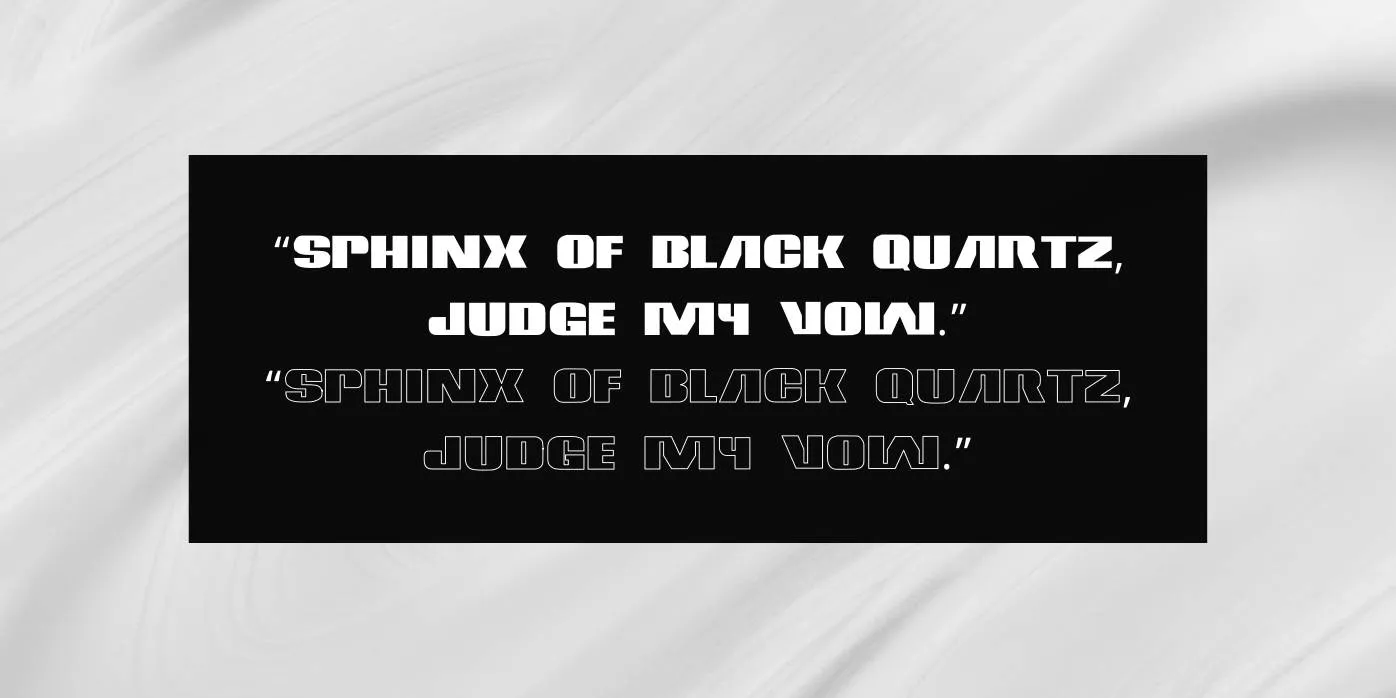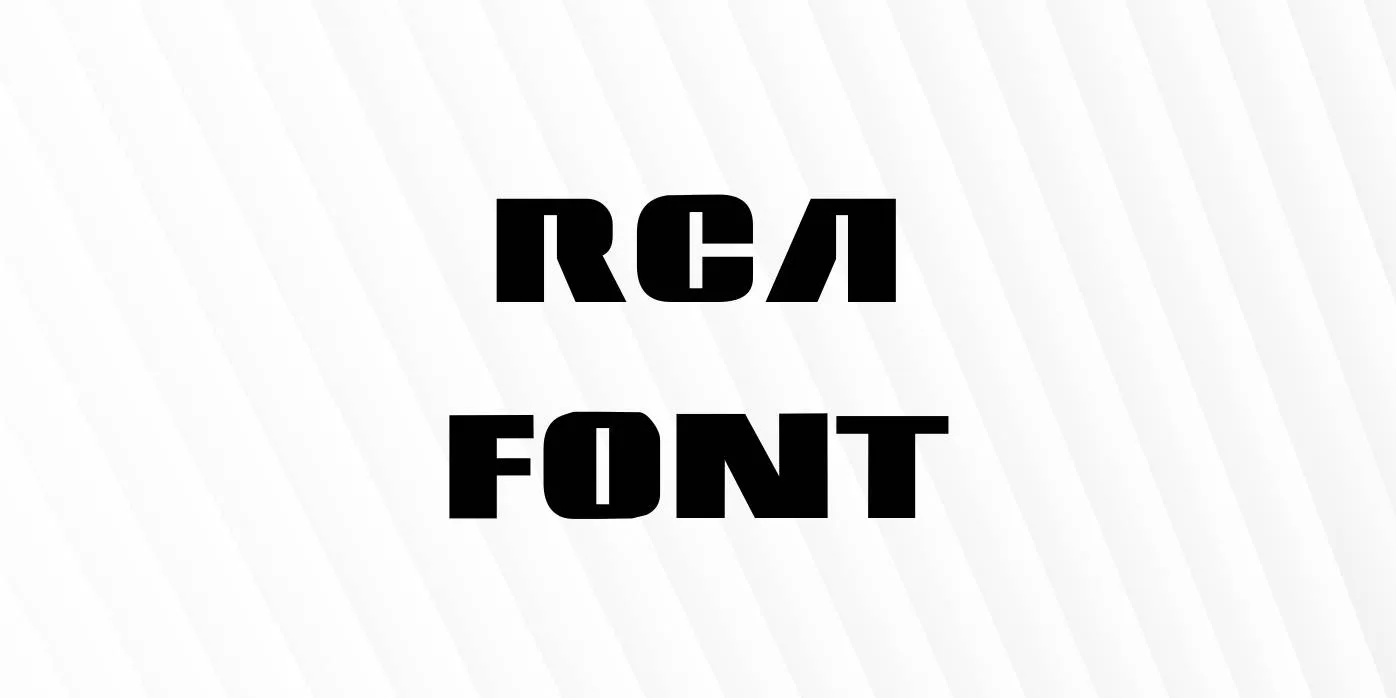
RCA Font
RCA Font is a typeface that was created specifically for the company RCA. The font was designed in the 1950s by Herb Lubalin and Tom Carnase, and it was used extensively by RCA in advertising and other communications. The Font is characterized by its thick, blocky letters and its strong geometric shapes. The Font was Lubalin’s first attempt at creating a typeface, and it remains one of his most famous designs.
The Typeface is still in use today by many companies and individuals. The shapes are mostly rectangular with sharp, 90-degree corners. The letters are thick and blocky, which makes them very easy to read. You can also try the sofia pro font in your specific designs that have amazing powerful characters and a paired nature.